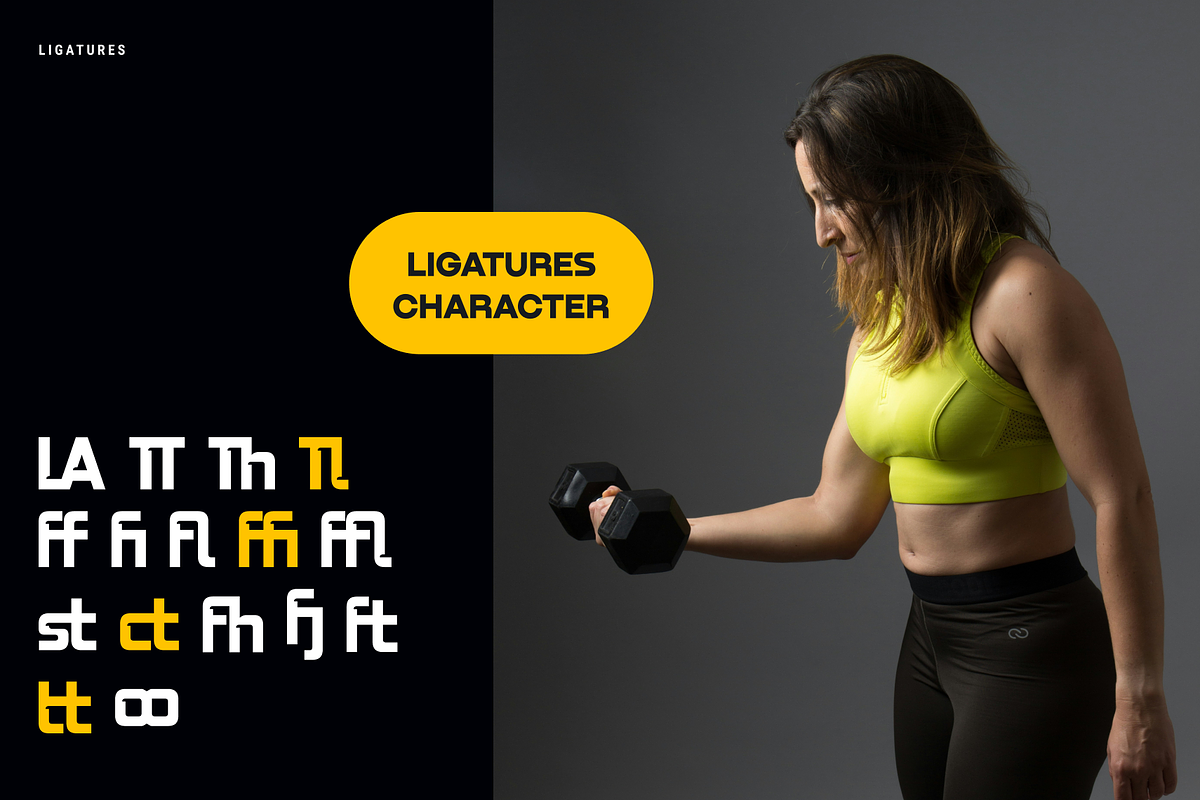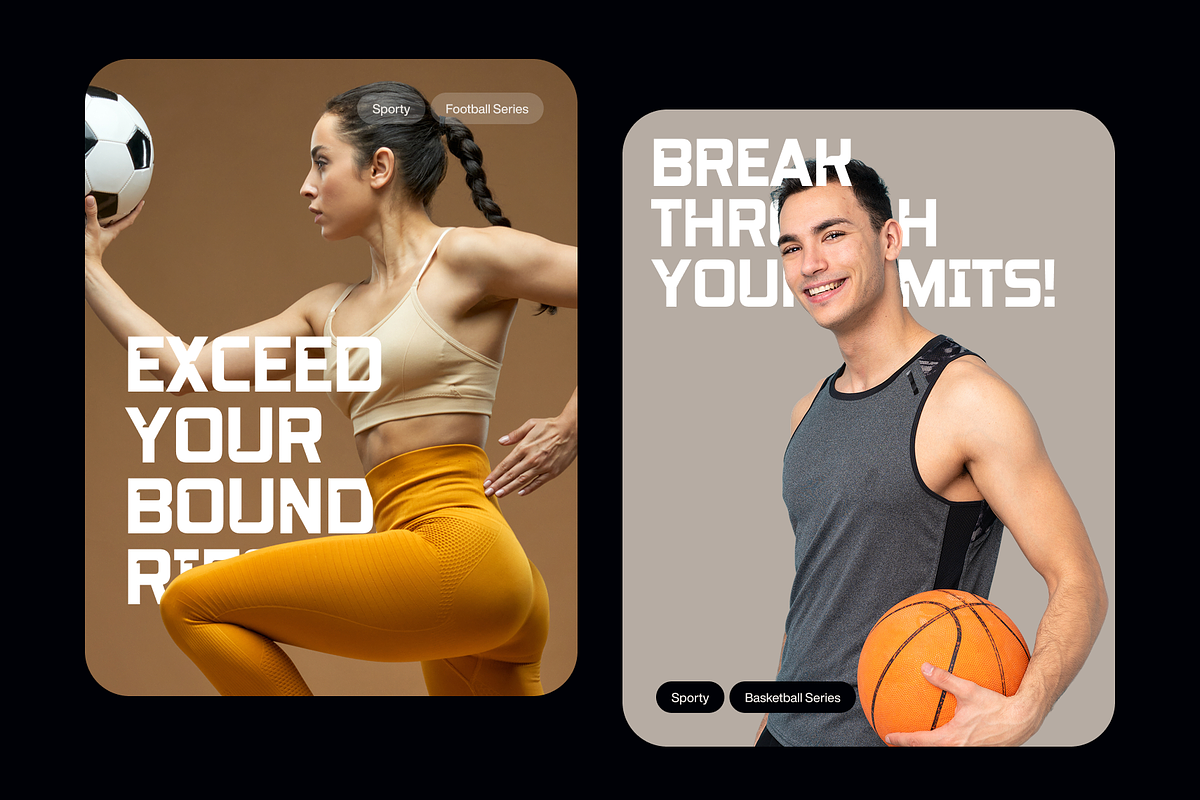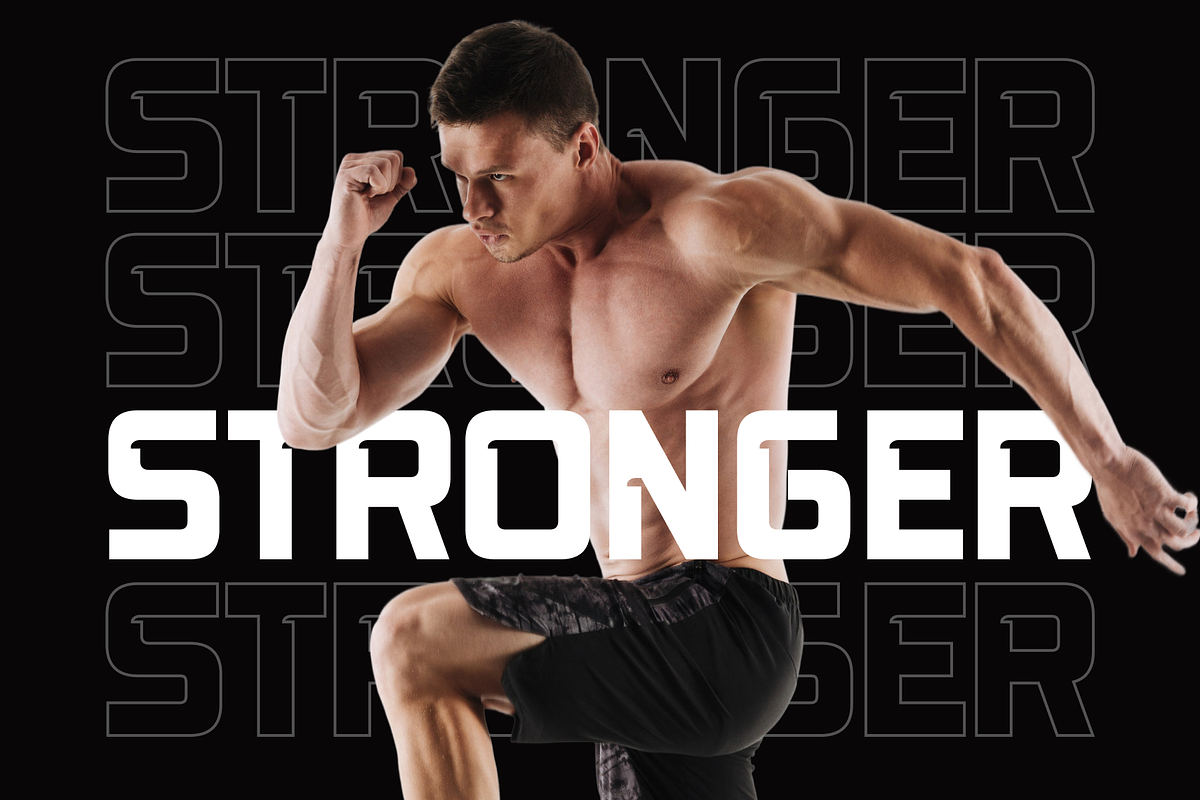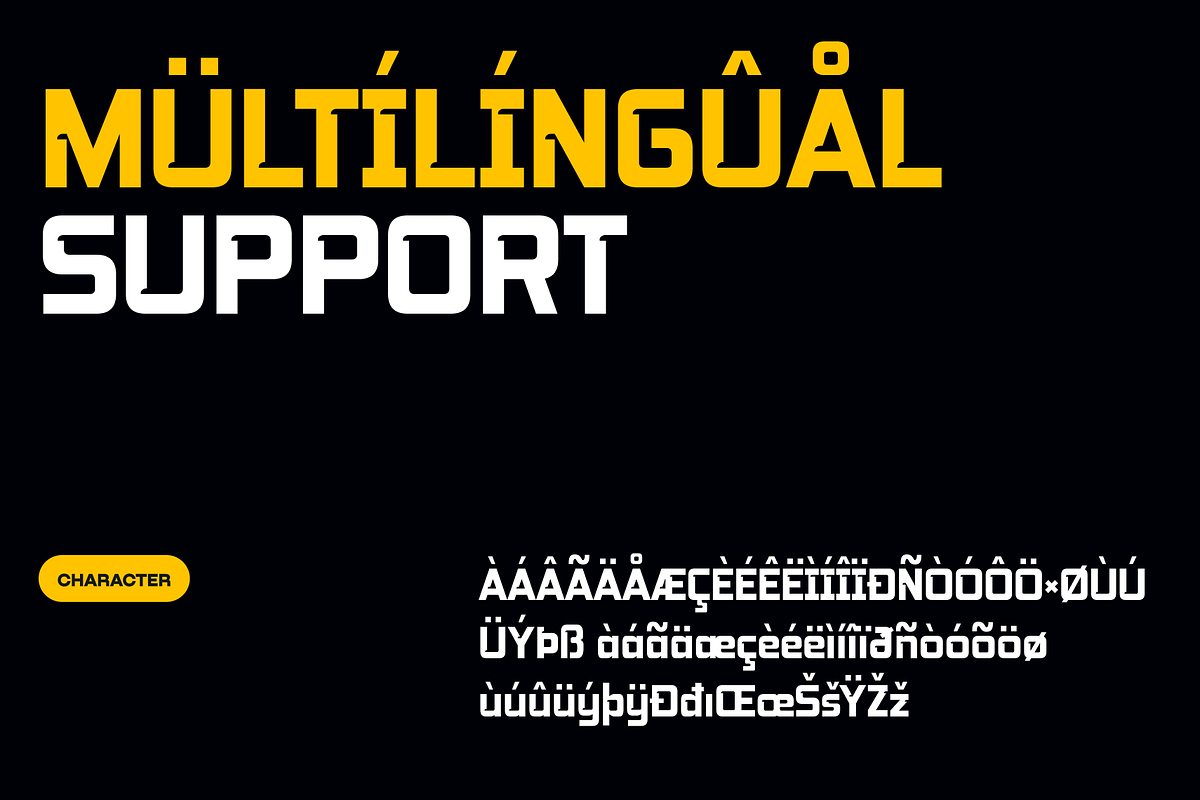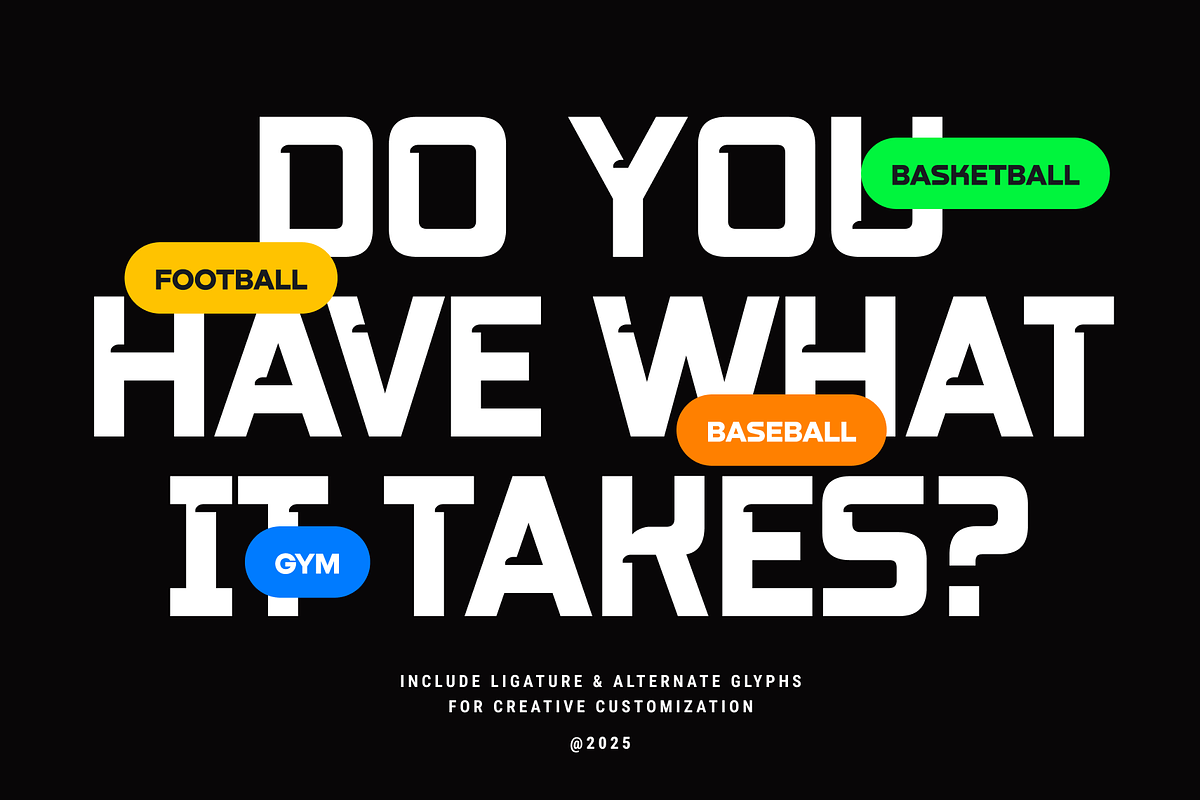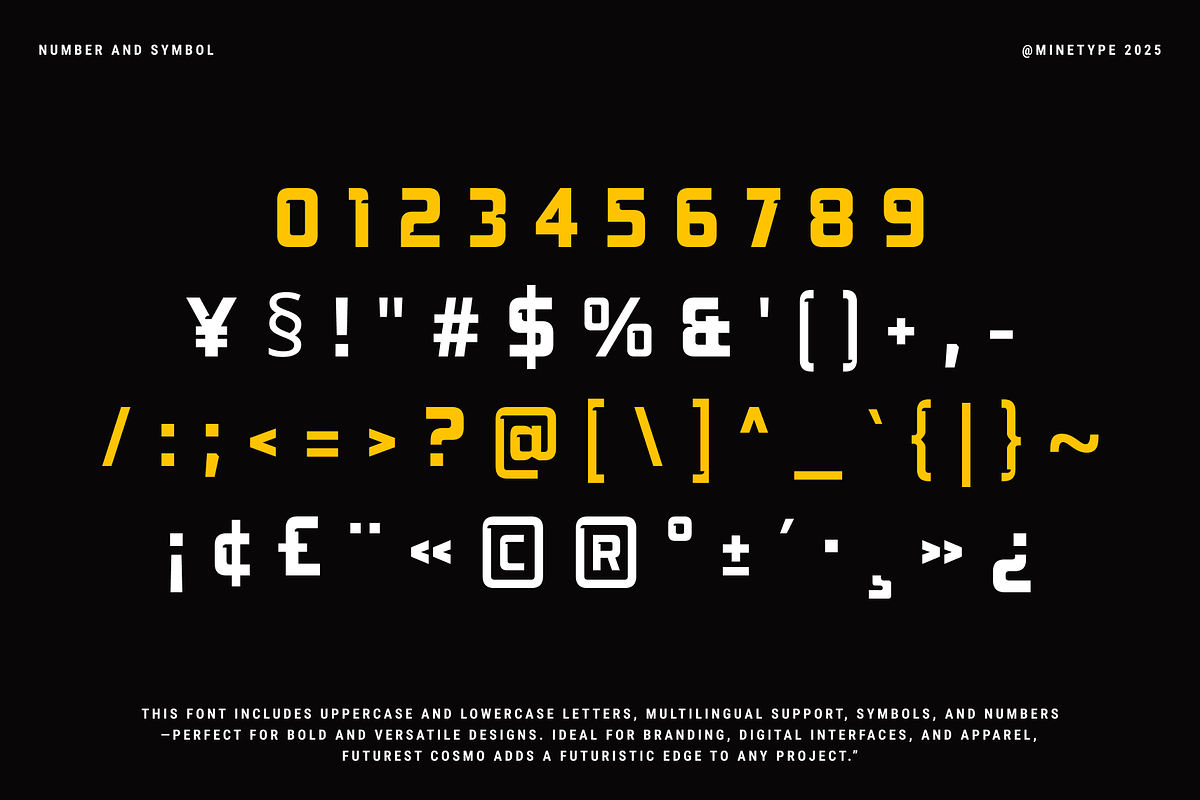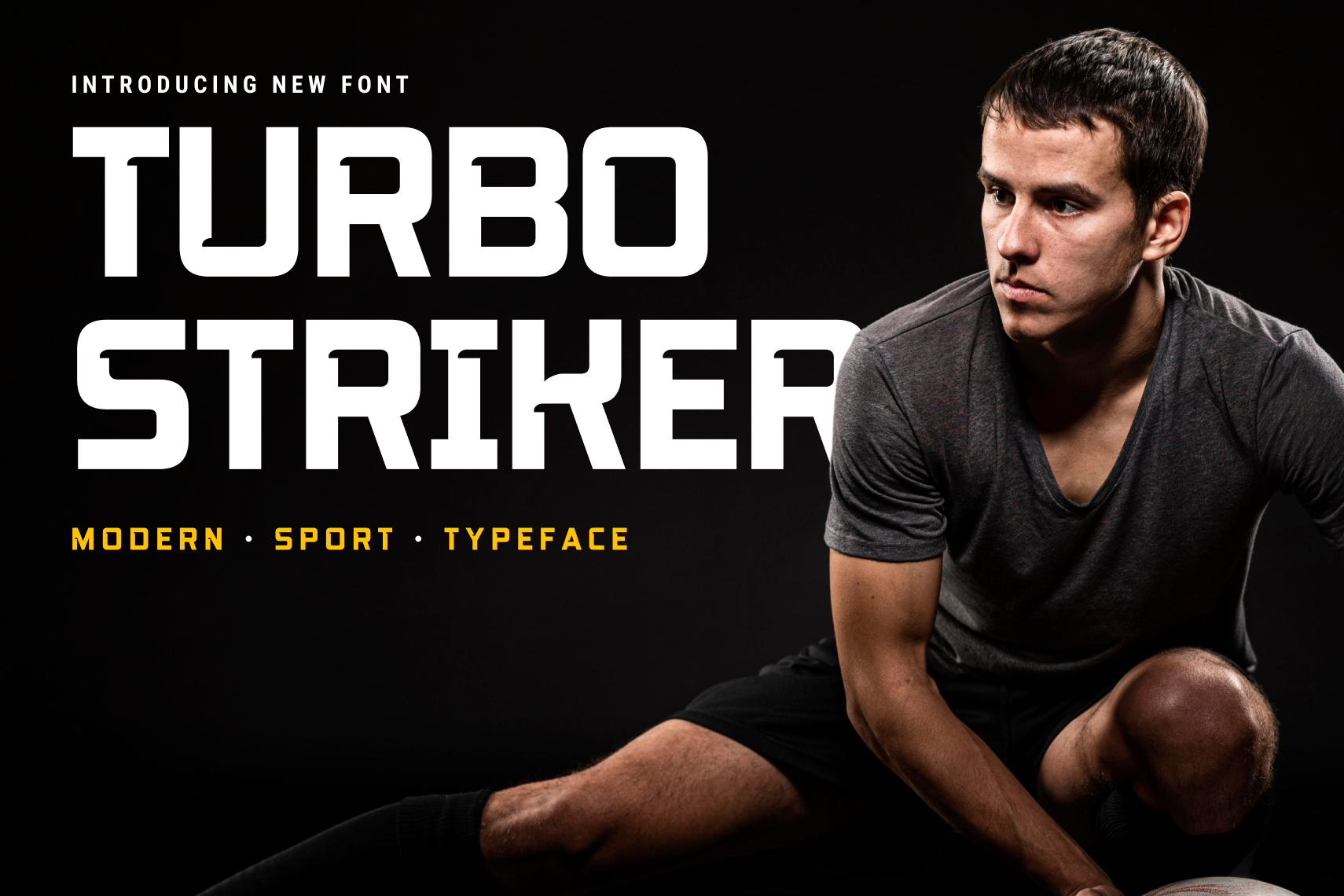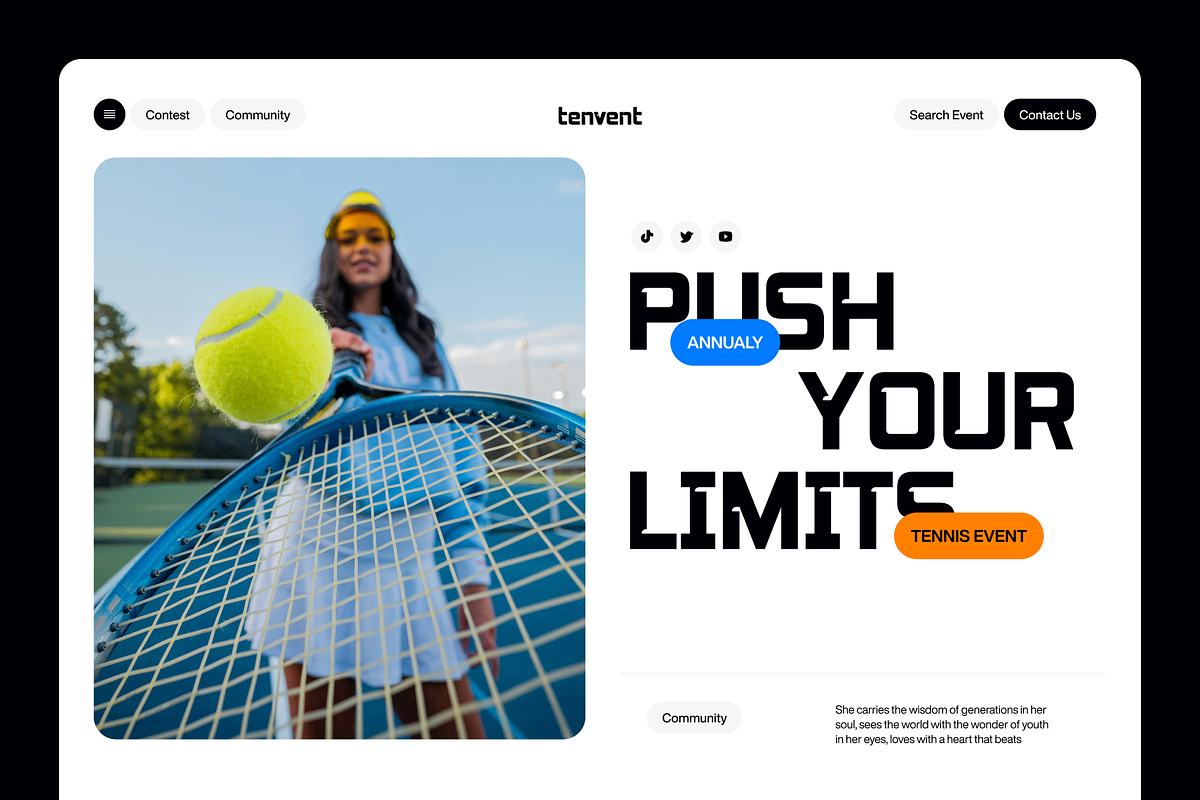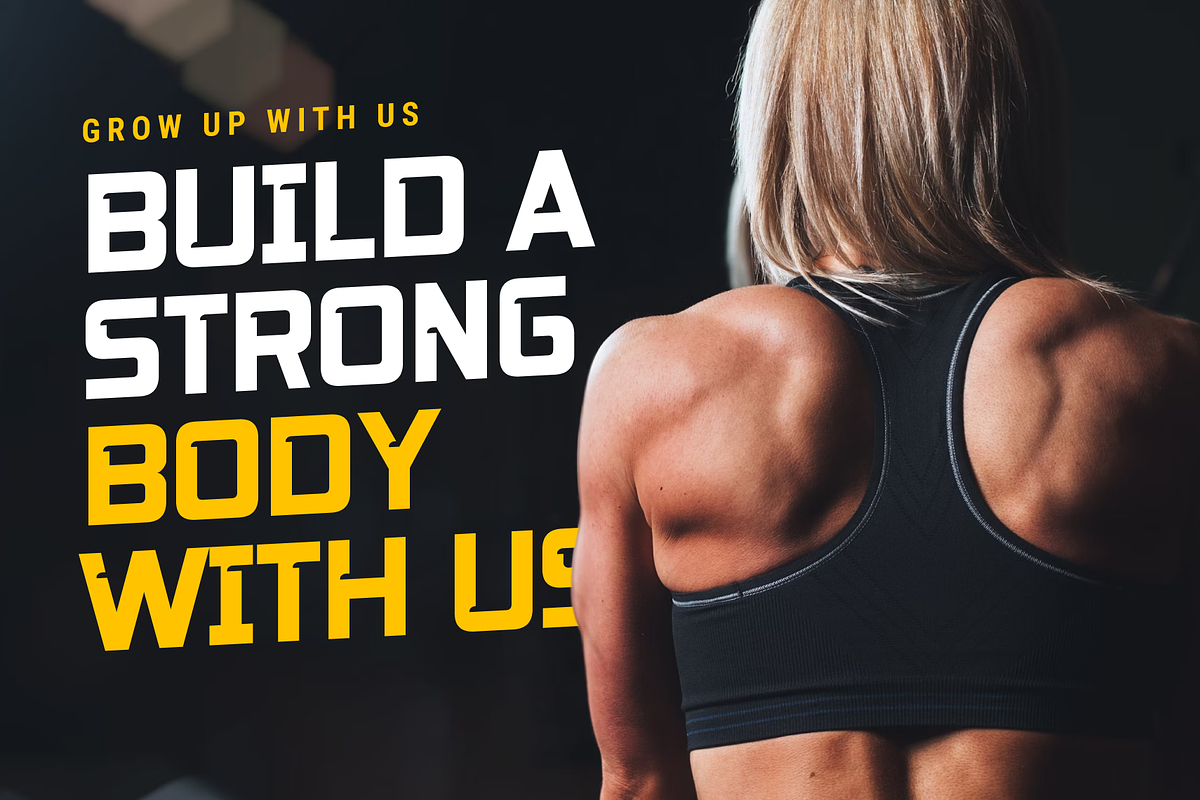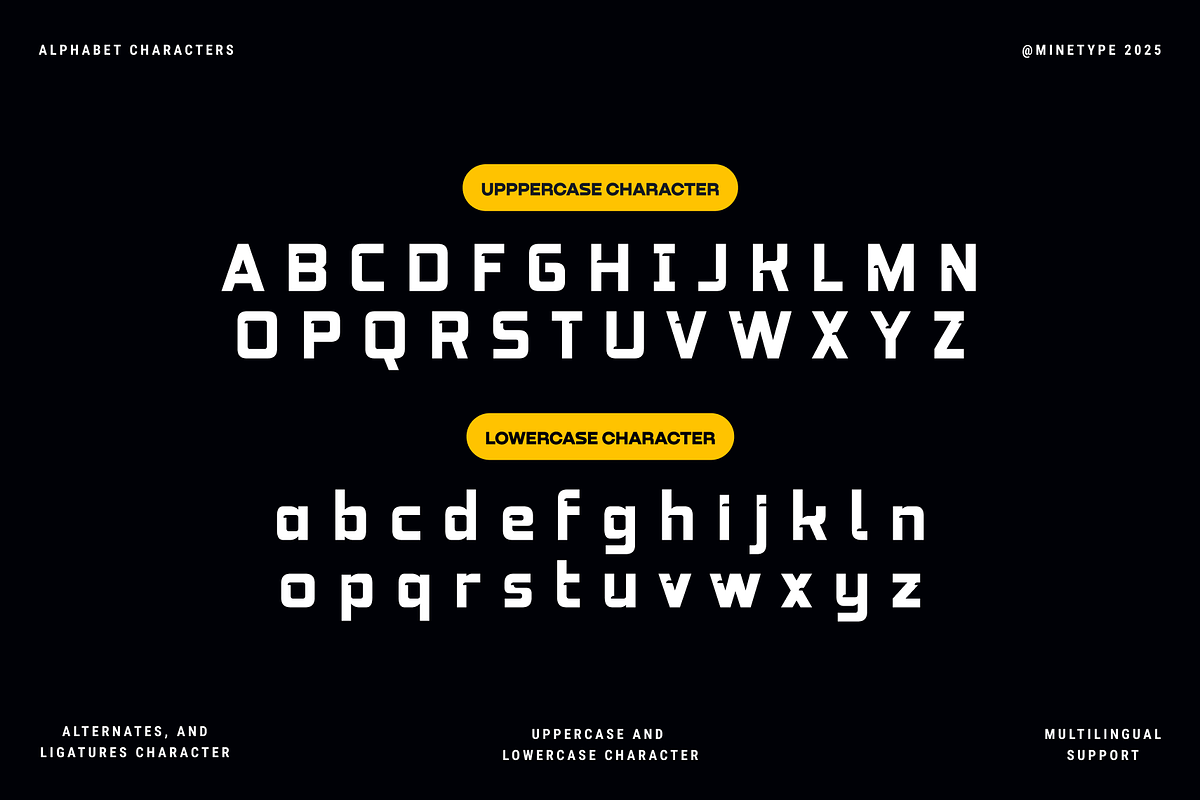
Turbo Striker - Sport Font
Turbo Striker – Sport Font
Unleash the power of speed and strength with Turbo Striker, a bold and energetic typeface built for high-impact designs. Inspired by dynamic sports branding, adrenaline-fueled competitions, and the sleek aesthetics of modern athletics, Turbo Strike is the perfect choice for projects that demand intensity, motion, and power.
Designed for sports logos, jerseys, posters, gaming graphics, and any design that needs an electrifying edge, Turbo Strike features sharp letterforms, aggressive angles, and strong ligatures that enhance its bold character.
✔ Uppercase & Lowercase Letters
✔ Alternates & Ligatures
✔ Punctuation & Symbols
✔ Numbers & Multilingual Support
✔ OpenType Features
Elevate your designs with Turbo Striker—where speed, strength, and style collide!